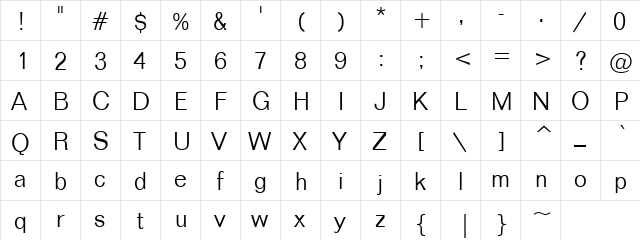
Rooster Regular
Design Context for Rooster Typeface
Rooster takes a measured approach to typography — its balanced proportions and neutral character make it a reliable workhorse for both digital and print work.